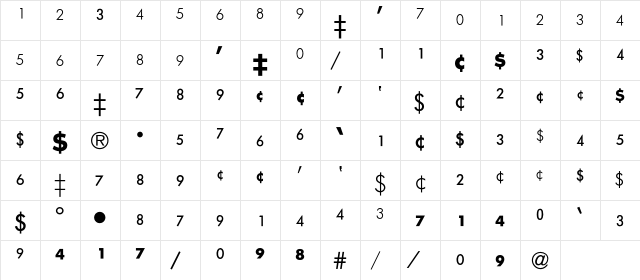
Futura Fractions BQ Regular
Design Context for Futura Fractions BQ Typeface
Futura Fractions BQ channels digital-age aesthetics through its sharp, structured letterforms — ideal for brands that want to signal innovation.